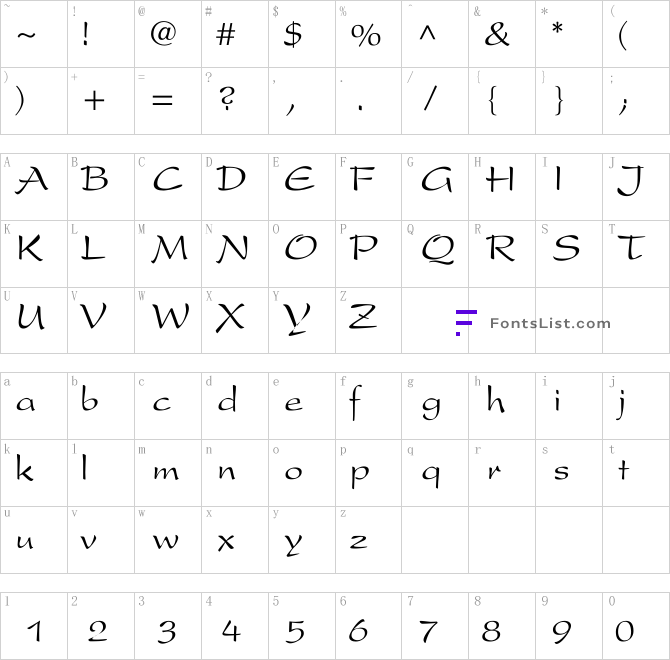
- Font Name:Arx Cyr
Arx-Cyr-.ttf is a very beautiful artistic font, Arx-Cyr-.ttf is widely used in the design and printing of various books and pictures,Arx-Cyr-.ttf has a strong visual impact,Arx-Cyr-.ttf is a commonly used font in newspapers, magazines and books, and is used in posters, e-commerce Poster design, store design, logo design, font design and other fields.Arx-Cyr-.